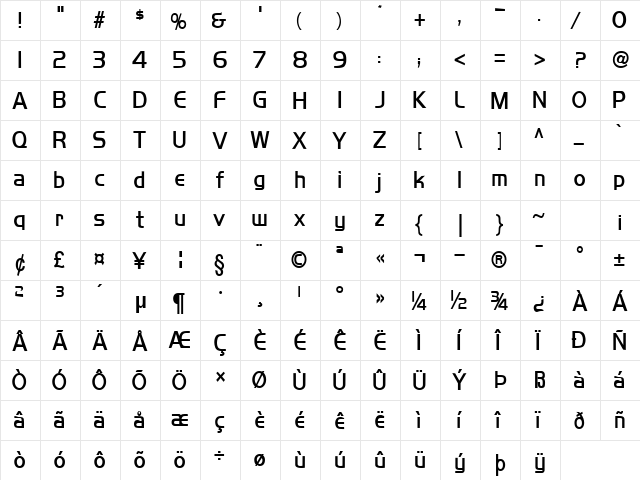
Orbit-Condensed Bold Font Preview
Design Context for Orbit-Condensed Typeface
Orbit-Condensed offers clean, dependable letterforms without strong stylistic allegiance, making it a practical choice for designers who need flexibility. The heavy weight commands attention and anchors typographic hierarchies. The condensed width makes it efficient for tight spaces without sacrificing legibility.